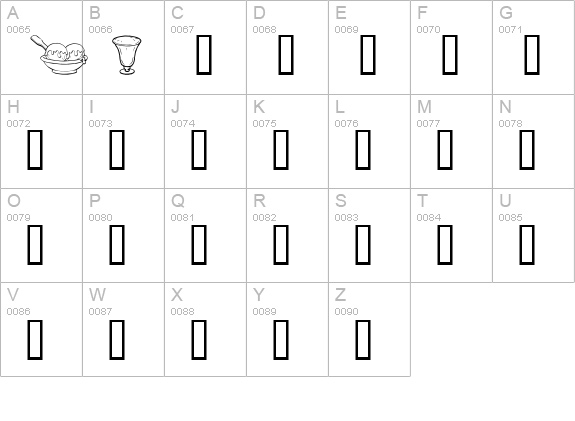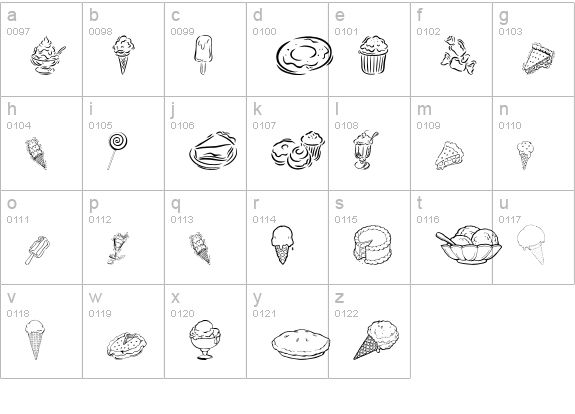
GE Sweet Tooth Font Details
Introducing GE Sweet Tooth font - a whimsical and playful typeface that will add a delightful touch to your designs. This charming font features rounded edges and a unique hand-drawn style that exudes sweetness and fun. Perfect for creating eye-catching headlines, invitations, posters, and more, GE Sweet Tooth is sure to bring a smile to your audience. What's even sweeter about this font is that it is completely free to download at FontsMarket.com. Yes, you read that right - you can easily access this delightful typeface without spending a dime. So go ahead, unleash your creativity and spread some joy with GE Sweet Tooth font today!